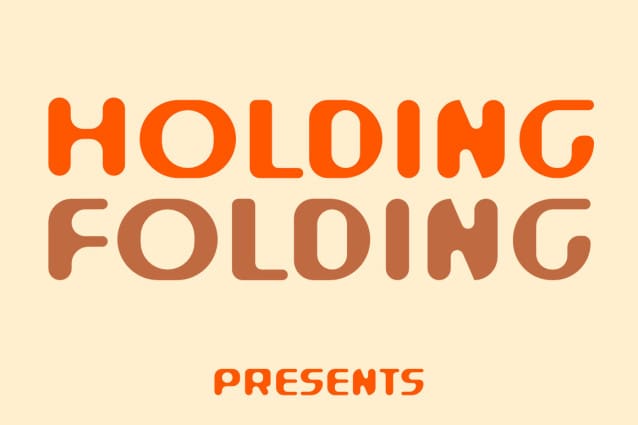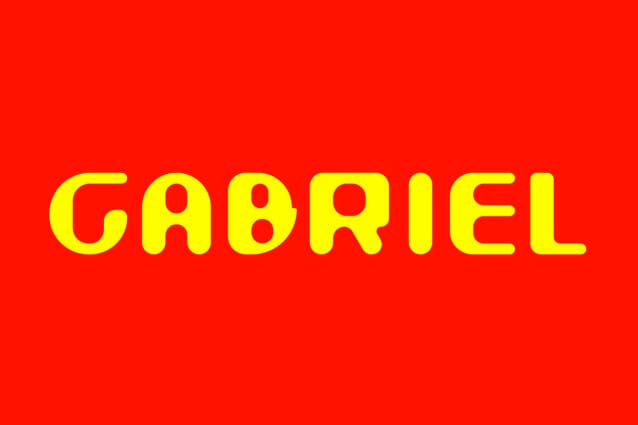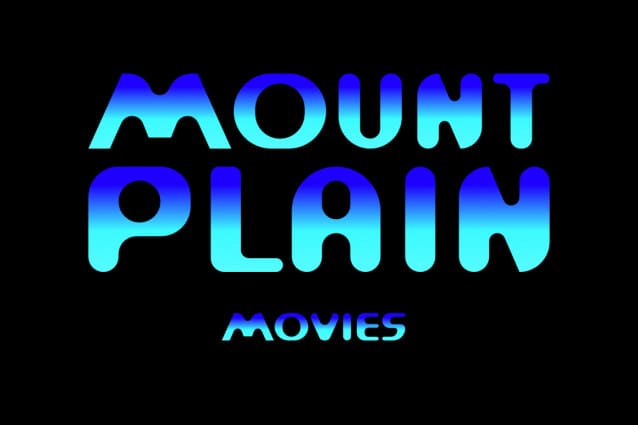
Warriot Circle Font
Warriot Circle Font, is a chunky, comic, and cartoon display font. With its neat and joyful personality, this font will enhance any project you wish to create!